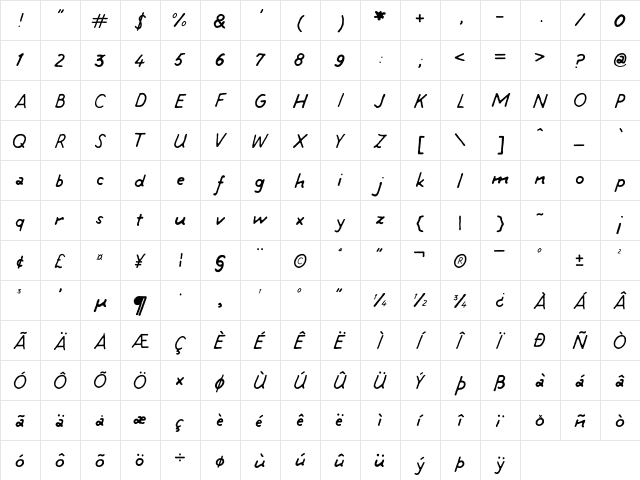
tintin Regular
Design Context for tintin Typeface
tintin takes a measured approach to typography — its balanced proportions and neutral character make it a reliable workhorse for both digital and print work.